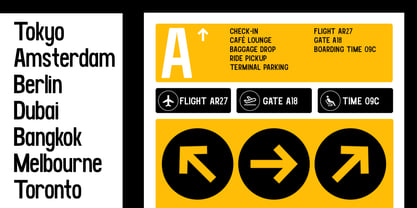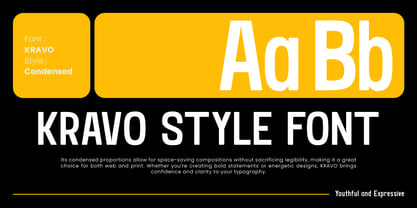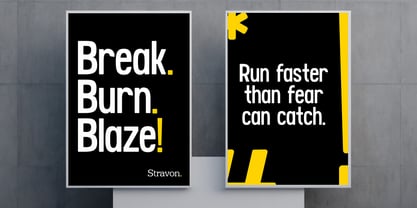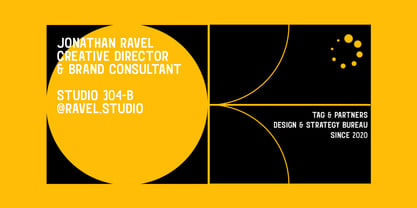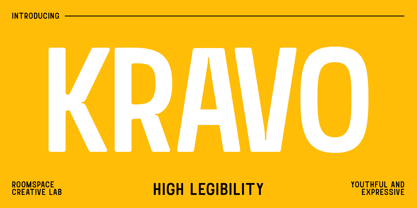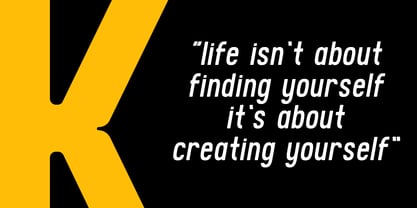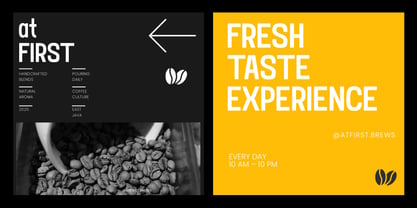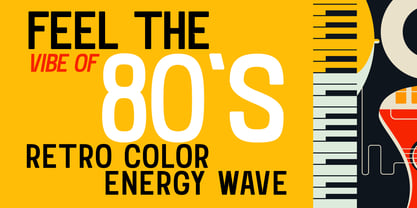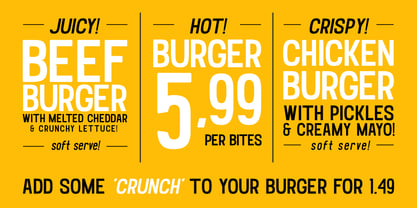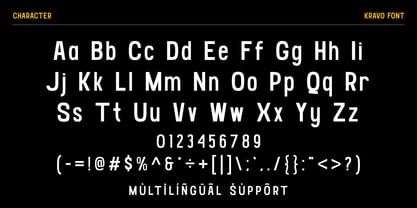
Kravo
by Jafar07
The Kravo Font Family was designed by Bakhrudin Ja'far and published by Jafar07. Kravo contains 2 styles and family package options. More about this family
Kravo’s tall structure and compact letterforms offer high legibility while maximizing space, making it the perfect choice for headlines, posters, editorial titles, and impactful branding. With clean lines and a modern feel, Kravo delivers clarity with character perfect for designers who want to make a statement without overwhelming the layout. Whether you’re working on digital graphics, magazine covers, web headers, or campaign visuals, Kravo gives your words volume and presence. Built to be bold yet readable, it’s a versatile typeface that suits contemporary design demands.
A little from my personal design & background: My name is Bakhrudin Ja'far, I live in Malang, Indonesia. I am currently completing my degree in visual communication design and I have worked as a lettering artist and logo designer for many years. I finally started my studio called roocspace creative lab (jafar07) Studio a few months ago and with my team made my letters into typography.